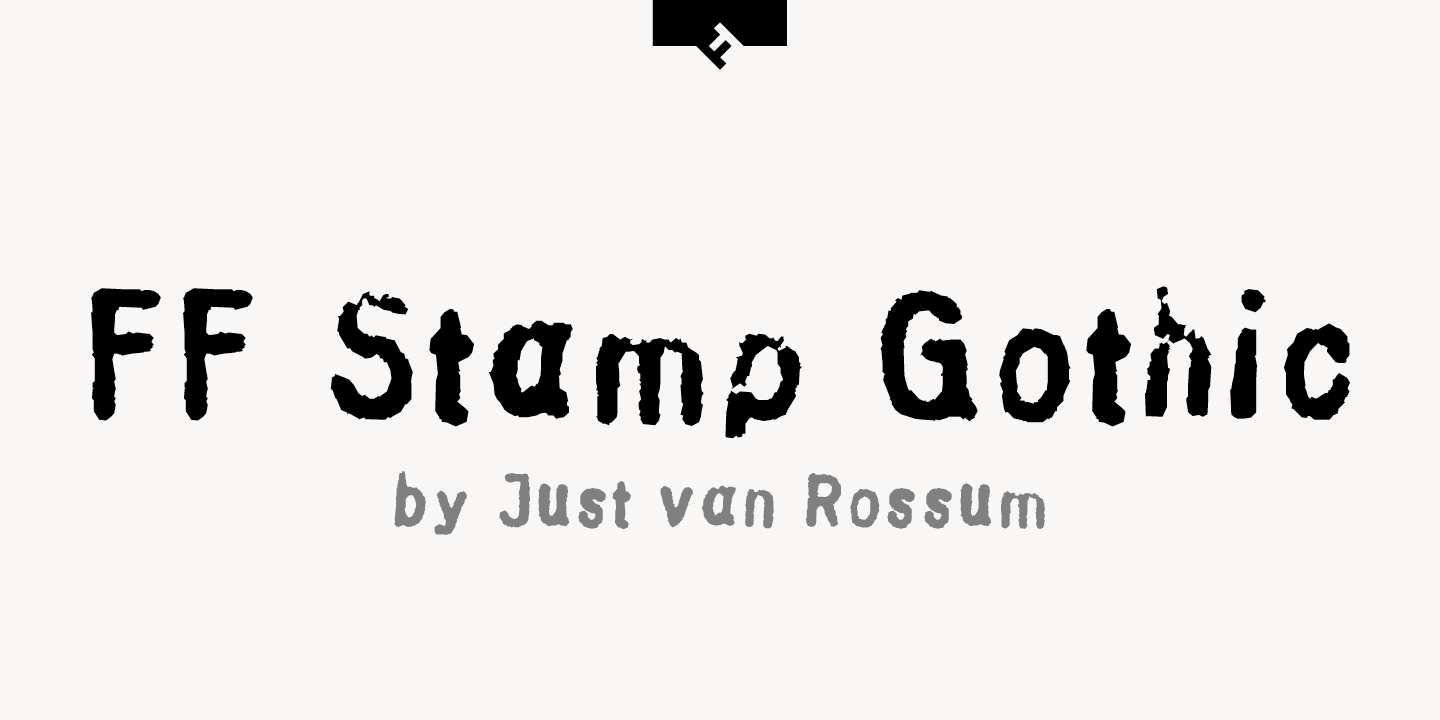
FF Stamp Gothic Font is an exceptional choice for projects that demand a raw, authentic, and high-impact aesthetic reminiscent of classic letterpress or rubber stamp printing. It's perfectly suited for edgy branding, music album art, independent film posters, rebellious fashion designs, and any application where you want to convey a sense of grit, authenticity, and handcrafted imperfection. Imagine it giving a powerful voice to a street art campaign, adding a bold and unrefined touch to a punk rock band's merchandise, or making a product's packaging feel uniquely tactile and original. Its distinct, textured appearance ensures your message is conveyed with both personality and an undeniable artistic edge.
What makes FF Stamp Gothic Font so exciting is its ability to capture the tactile charm and slight irregularities of traditional printing methods in a digital format. It offers a powerful visual statement that feels both nostalgic and utterly contemporary, providing a counterpoint to overly polished digital aesthetics. This font isn't just about conveying text; it’s about evoking a feeling, bringing a sense of rebellious artistry and genuine character to your designs. It's the ideal tool for designers who want their work to feel raw, impactful, and truly memorable.
The FF Stamp Gothic Font family typically offers a range of weights and styles to provide comprehensive design flexibility, often emphasizing its unique distressed effect. You might find variations from a standard Regular weight that showcases its core stamped aesthetic, to bolder versions that maximize its impact, and possibly even italic or condensed styles that retain its distinctive texture. These nuances ensure that FF Stamp Gothic Font Free Download can be the cornerstone of a truly unique and powerfully expressive visual identity, helping your designs stand out with an undeniable sense of character and authenticity.